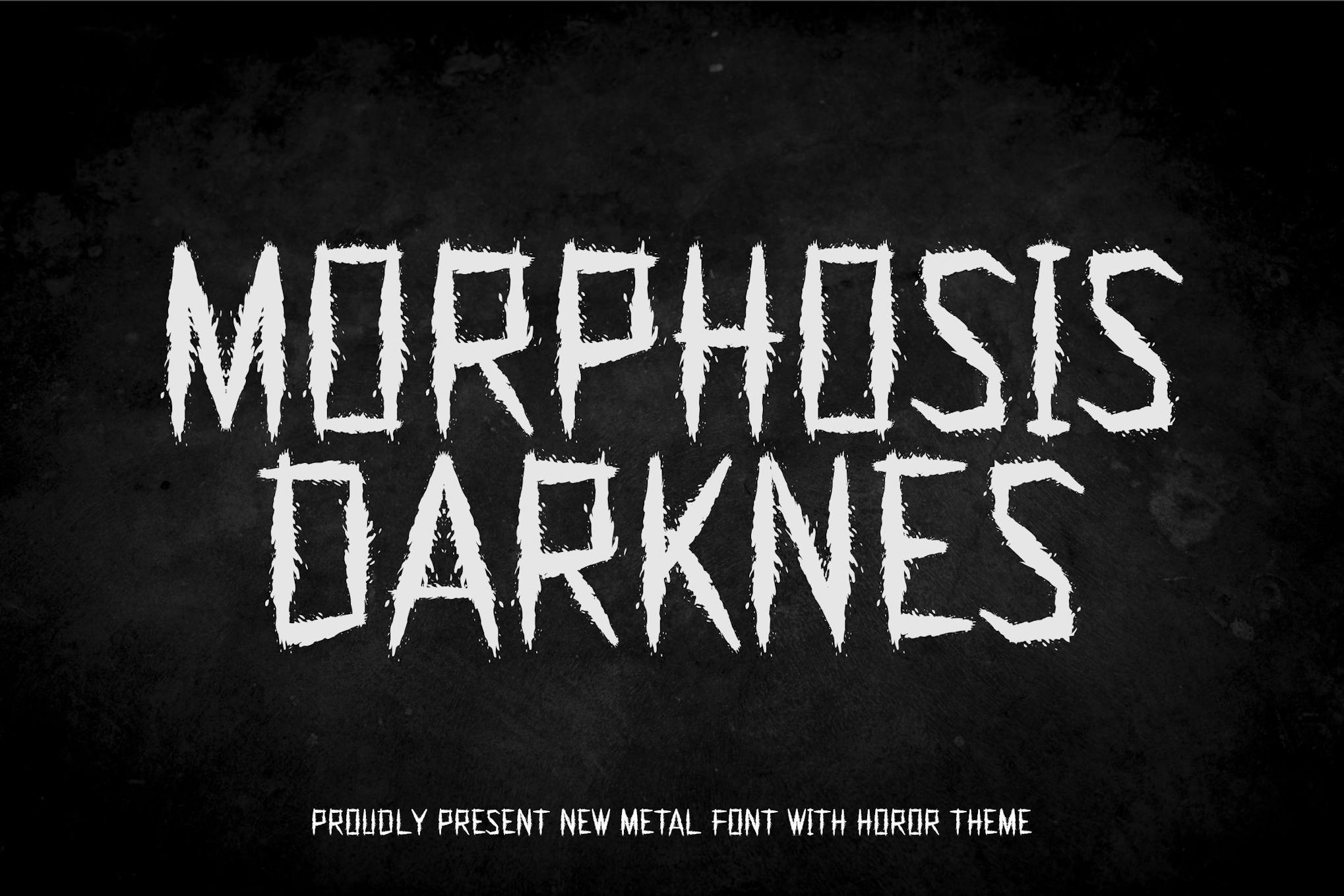
Morphosis Darknes - Black Metal Font
Perfect for heavy metal band logos, dark-themed posters, album covers, gothic branding, tattoo designs, merchandise, and festival graphics.
The Morphosis Darknes - Black Metal Font excites designers with its razor-sharp edges, gothic letterforms, and intense dark aesthetic that captures the true spirit of extreme metal culture.
The Morphosis Darknes - Black Metal Font Free Download is a striking typeface created for designers who want to channel the raw energy and chaotic elegance of black metal into their work. Every letter is meticulously crafted with sharp, spiked details and jagged flourishes that mimic the style of legendary underground band logos. Whether you’re working on a tour poster, album artwork, or edgy clothing designs, this font brings an unmistakable sense of rebellion and darkness.
One of the standout qualities of Morphosis Darknes - Black Metal Font is its ability to combine extreme style with visual cohesion. Despite its intricate shapes, it maintains legibility in large-scale designs, making it perfect for banners, stage backdrops, and product branding where the goal is to shock and impress.
In the music industry, this font is tailor-made for metal subgenres such as black metal, death metal, doom, and thrash. Its aggressive look resonates with fans and builds an immediate visual connection to the music’s intensity. For tattoo parlors, alternative fashion brands, and gaming projects with dark fantasy themes, Morphosis Darknes offers a perfect stylistic match.
For digital use, this font thrives on band websites, event announcements, and merchandise stores. It works beautifully with monochrome palettes, fire or blood textures, and atmospheric photography, creating a visual identity that’s as intense as the sound it represents.